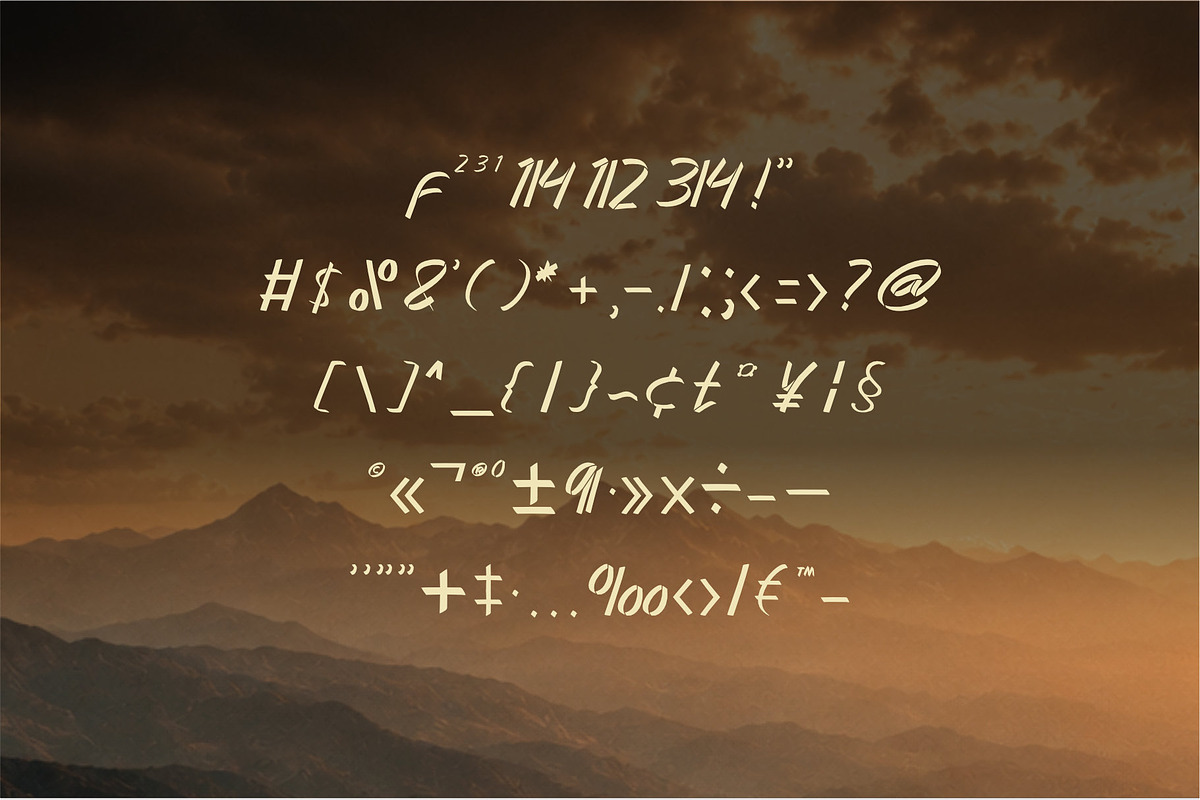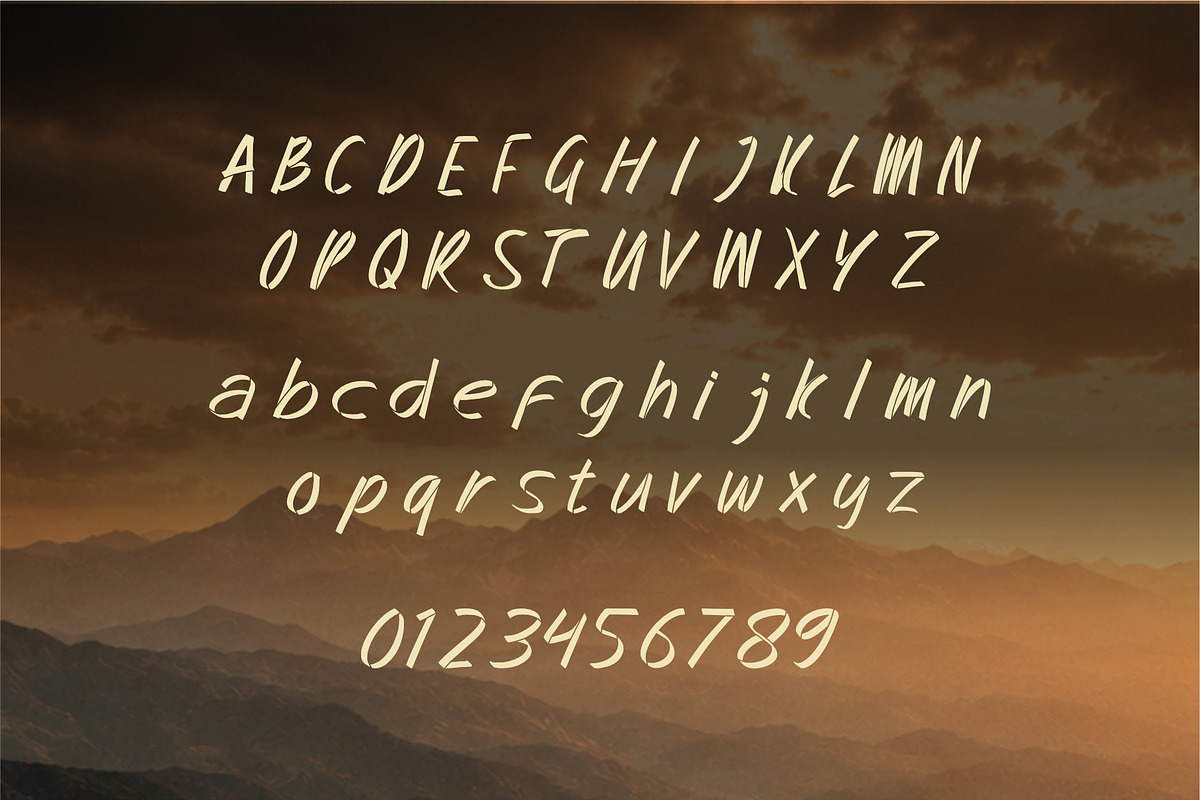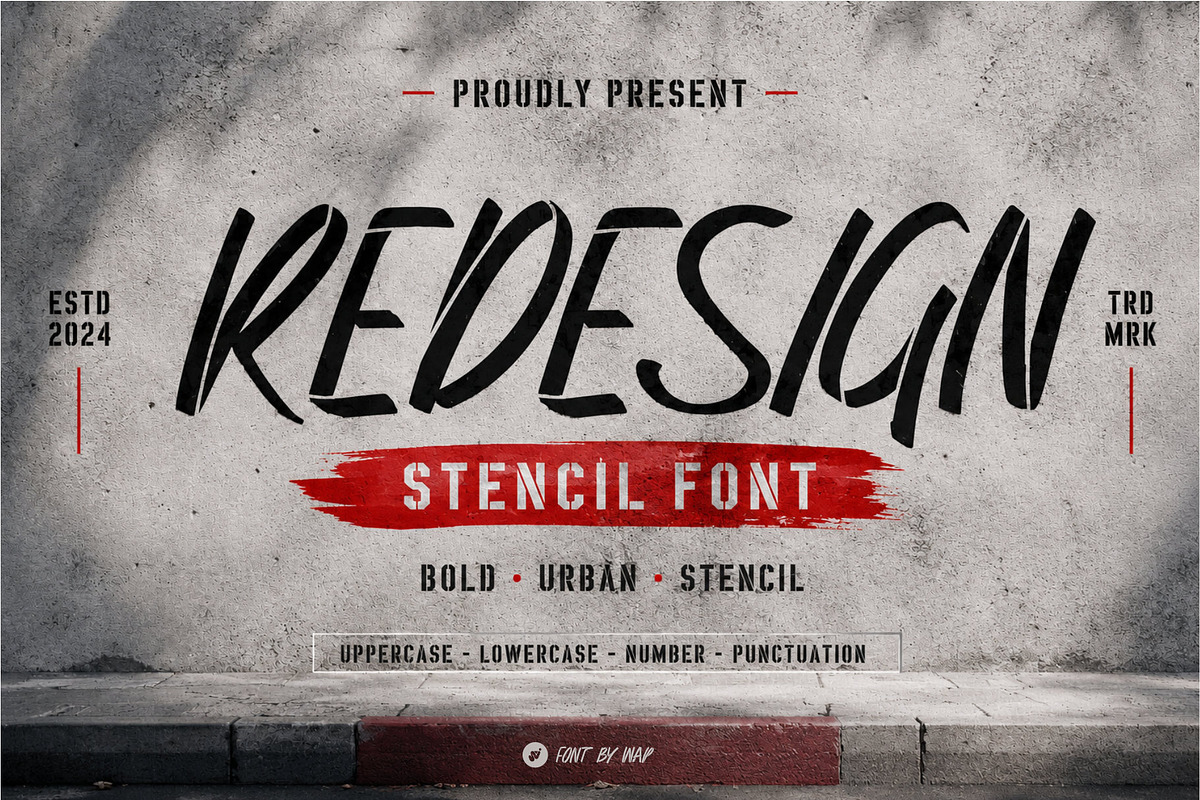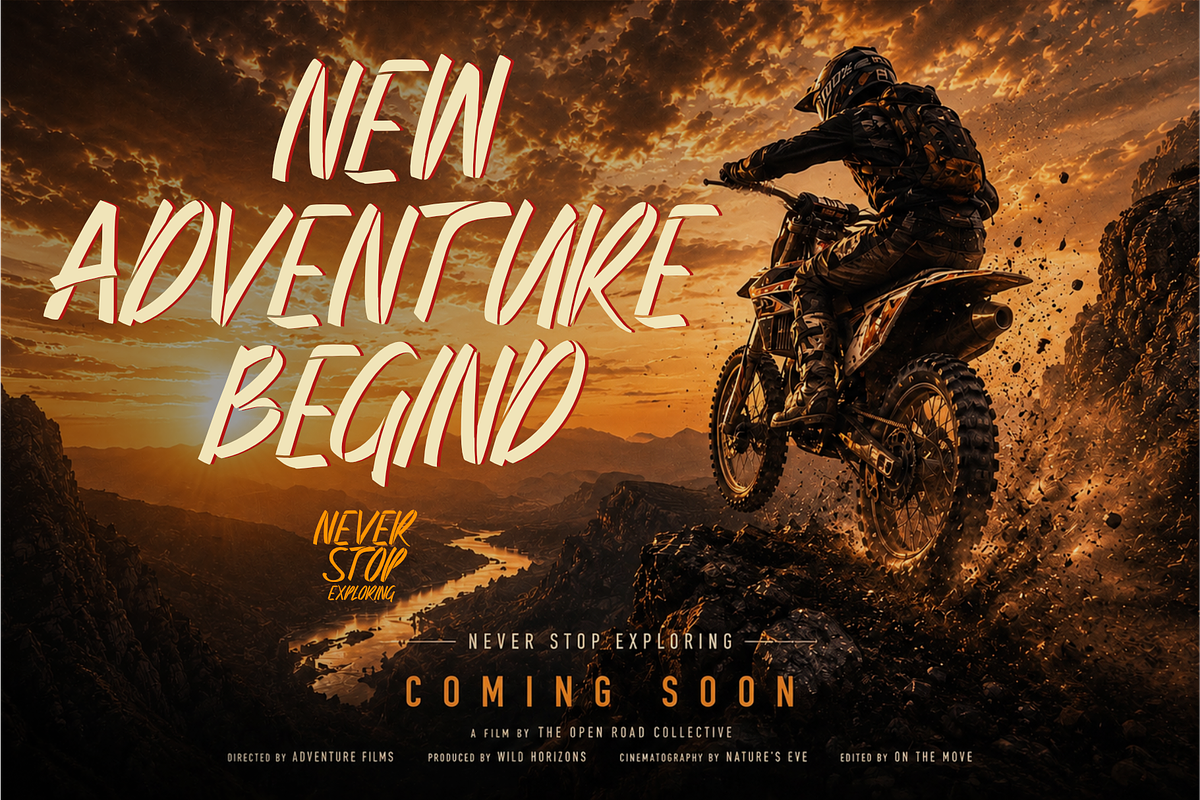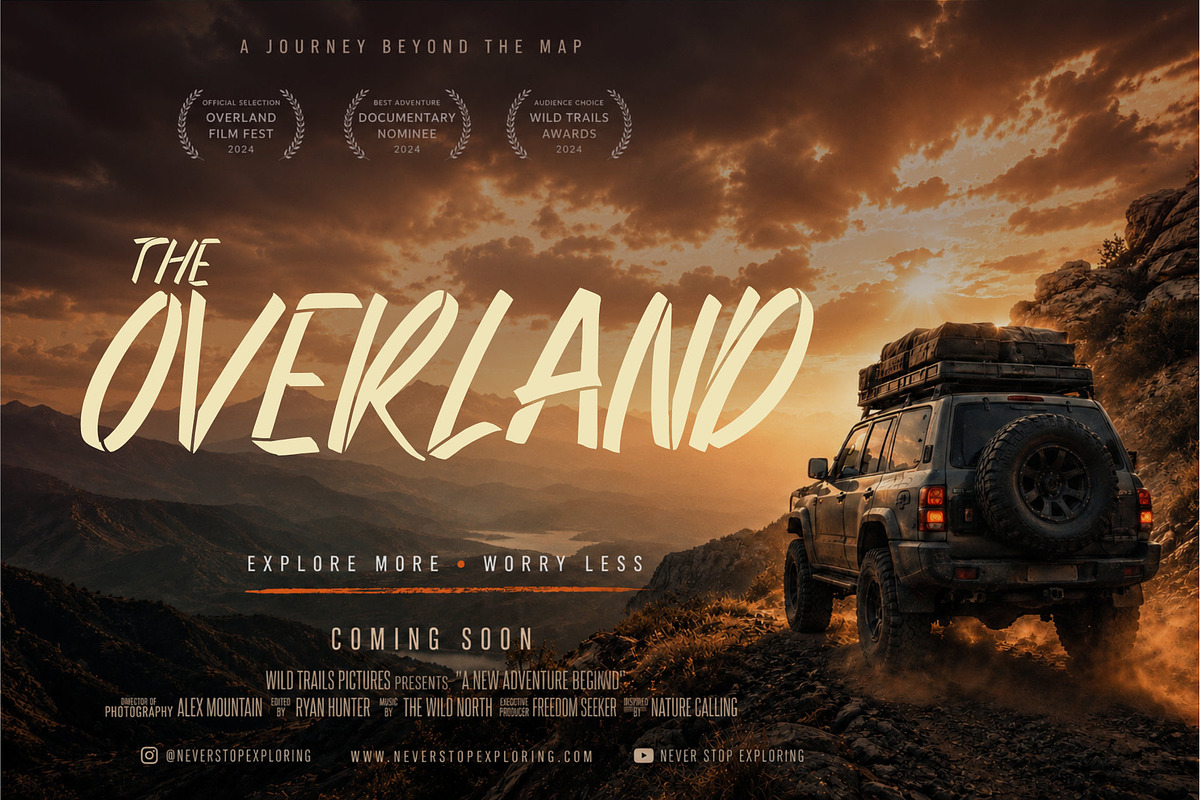
REDESIGN
Brush Stencil Font is a rough brushstroke style font combined with a firm stencil cut, creating a strong, bold, and expressive letter character. This font is designed for those of you who want to display street, rebel, and modern visuals in one typographic touch.
Each letter has a natural texture like a hand scribble, giving a lively and authentic impression, while remaining neat and easy to read for professional design needs.
✨ Suitable For:
Event posters and flyers
T-shirt & merchandise design
Clothing & streetwear branding
Social media content & visual quotes
Album cover, music artwork, & digital mural
Website title & creative headline